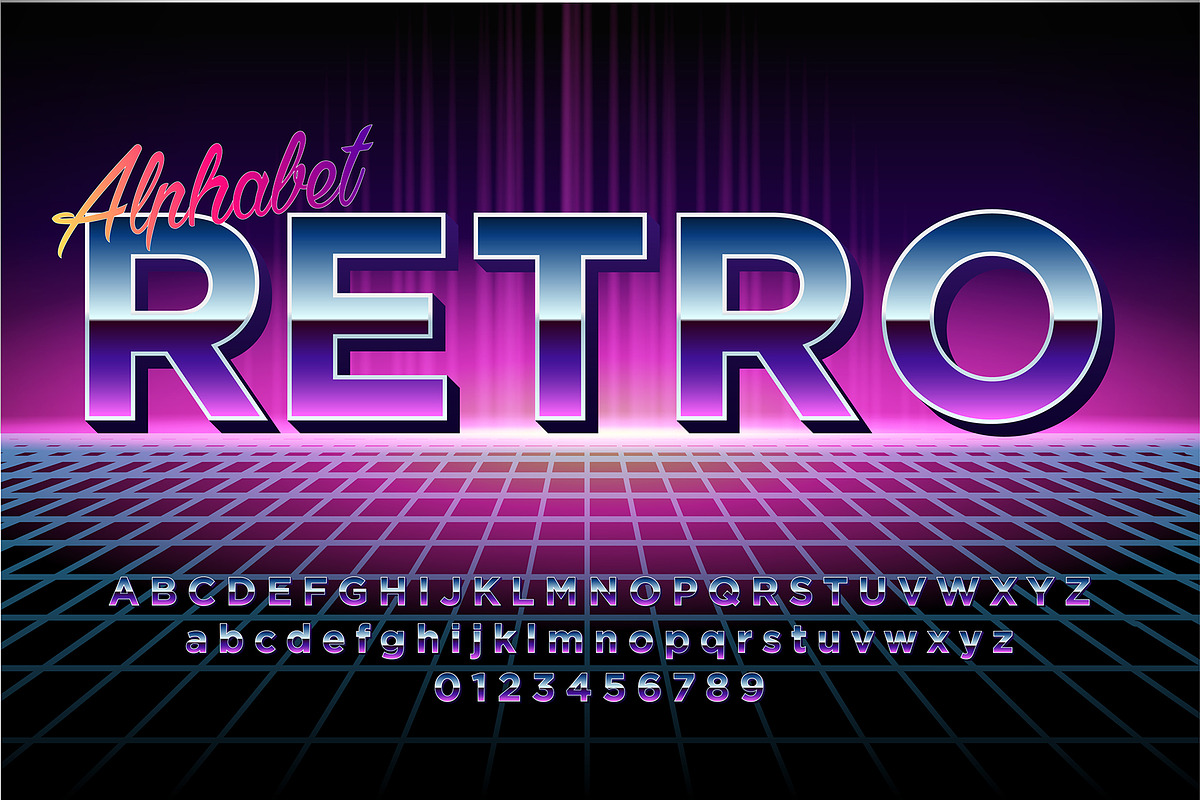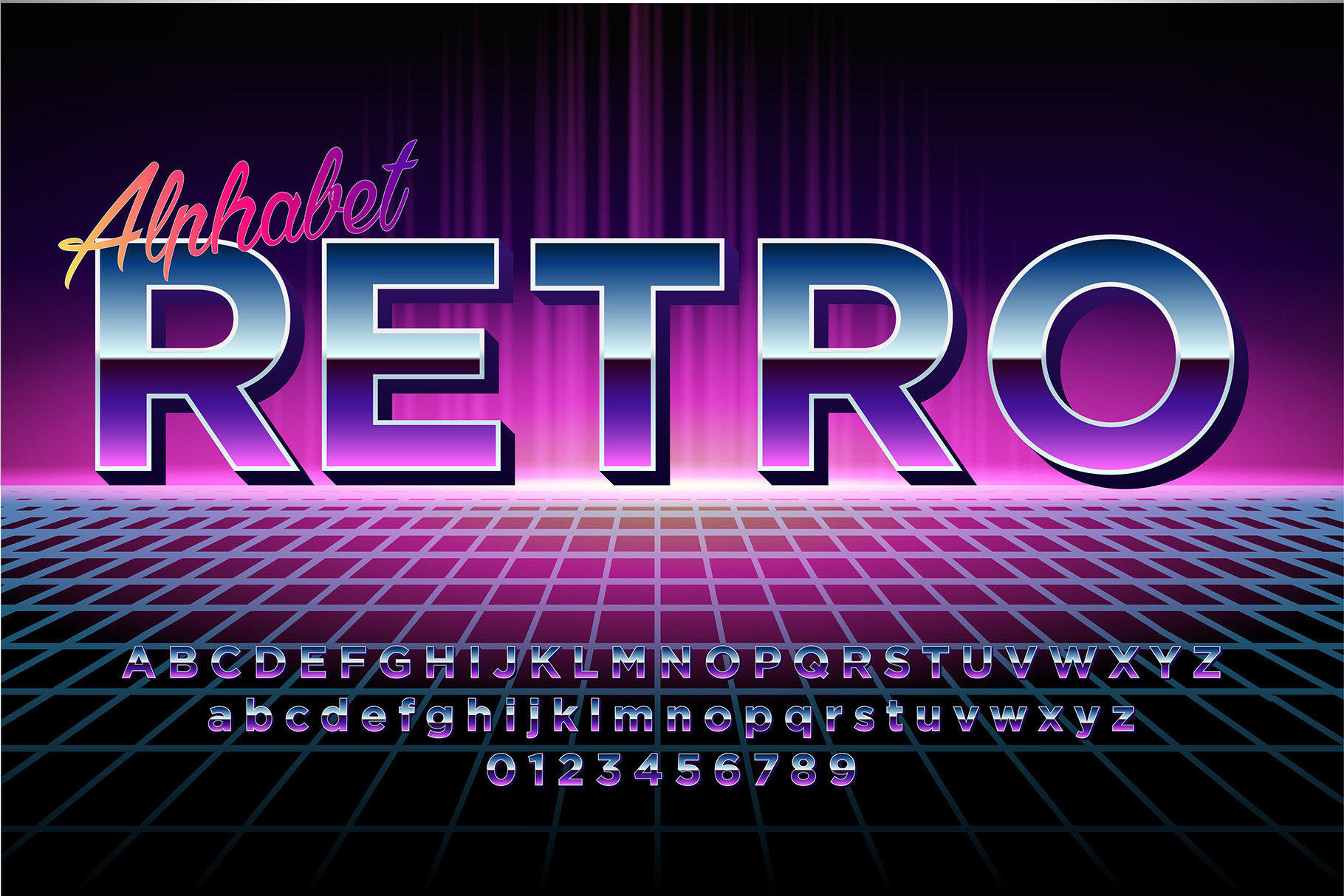
Retro Chrome Disco Font
Retro Chrome Metallic Alphabet. Shiny Futuristic 80s-90s Disco Style Typeface for Posters, Flyers, and Creative Retro Designs - EPS (Not a Font!)
- Uppercase letters A - Z
- Lowercase letters A - Z
- Numbers 0 - 9
- Background
- Clean, modern, and unique alphabet design